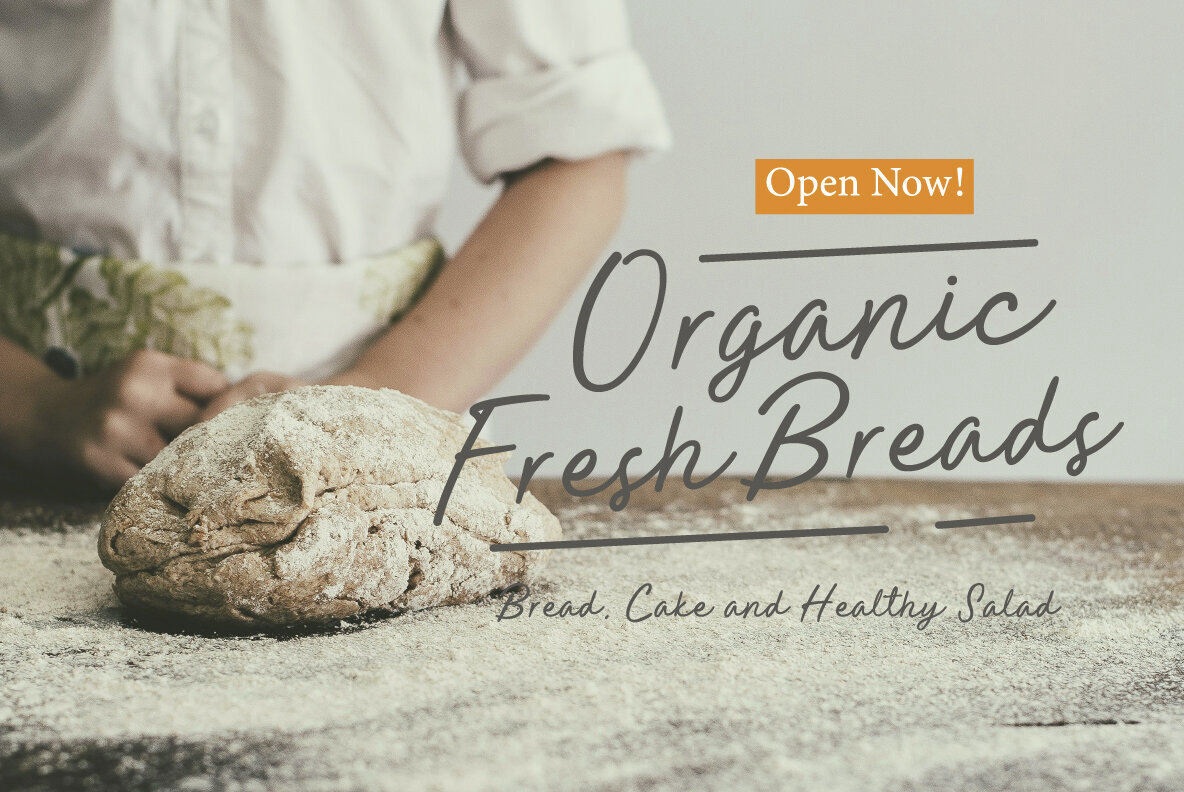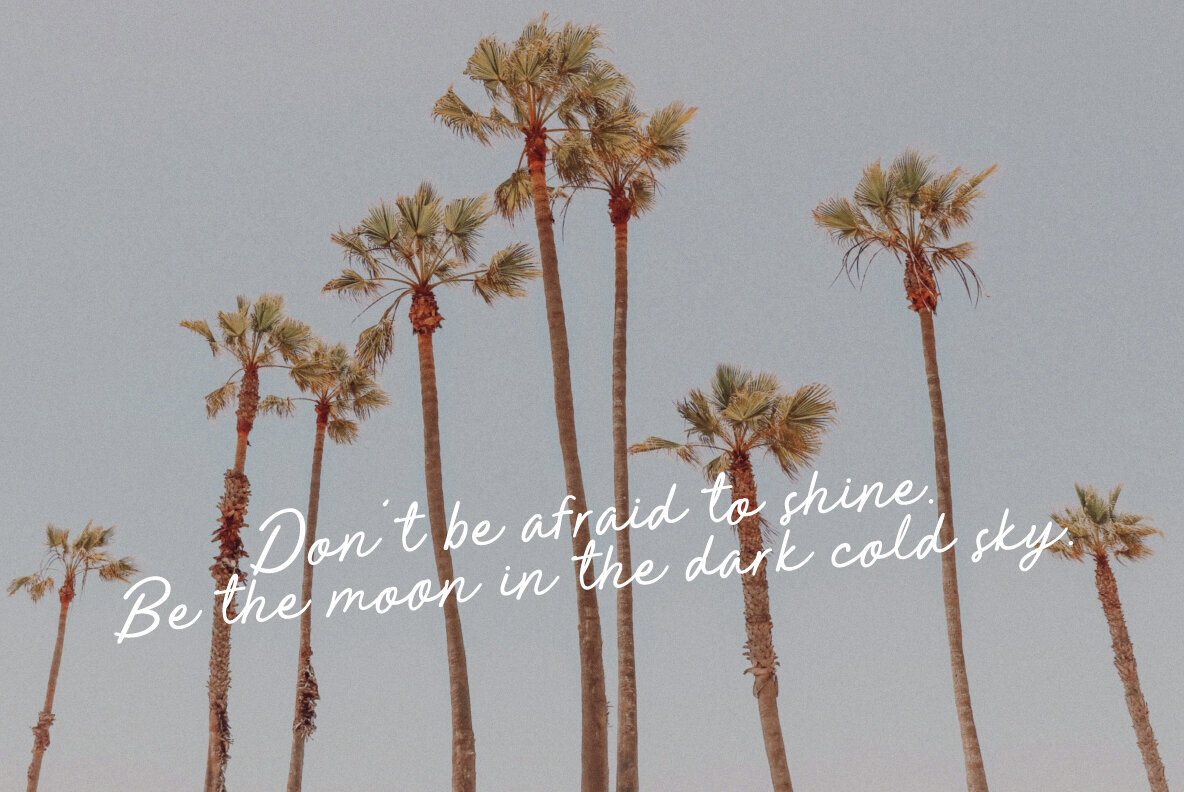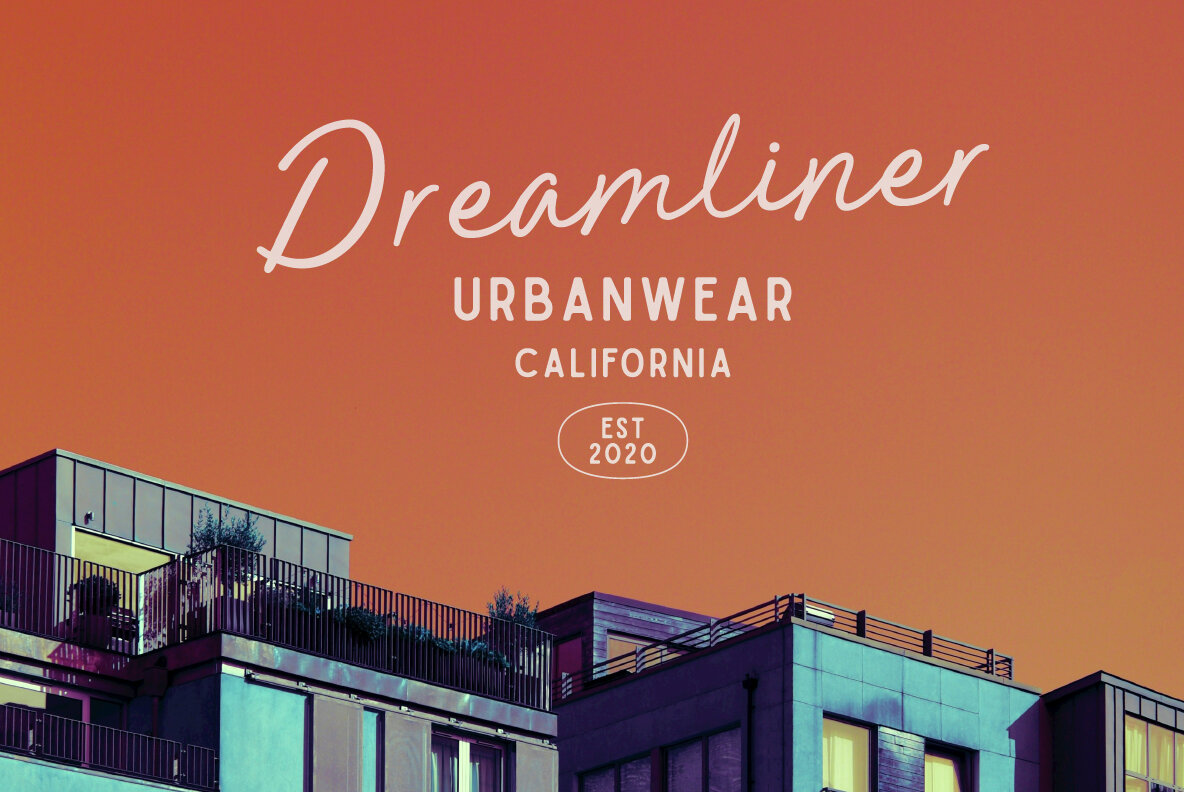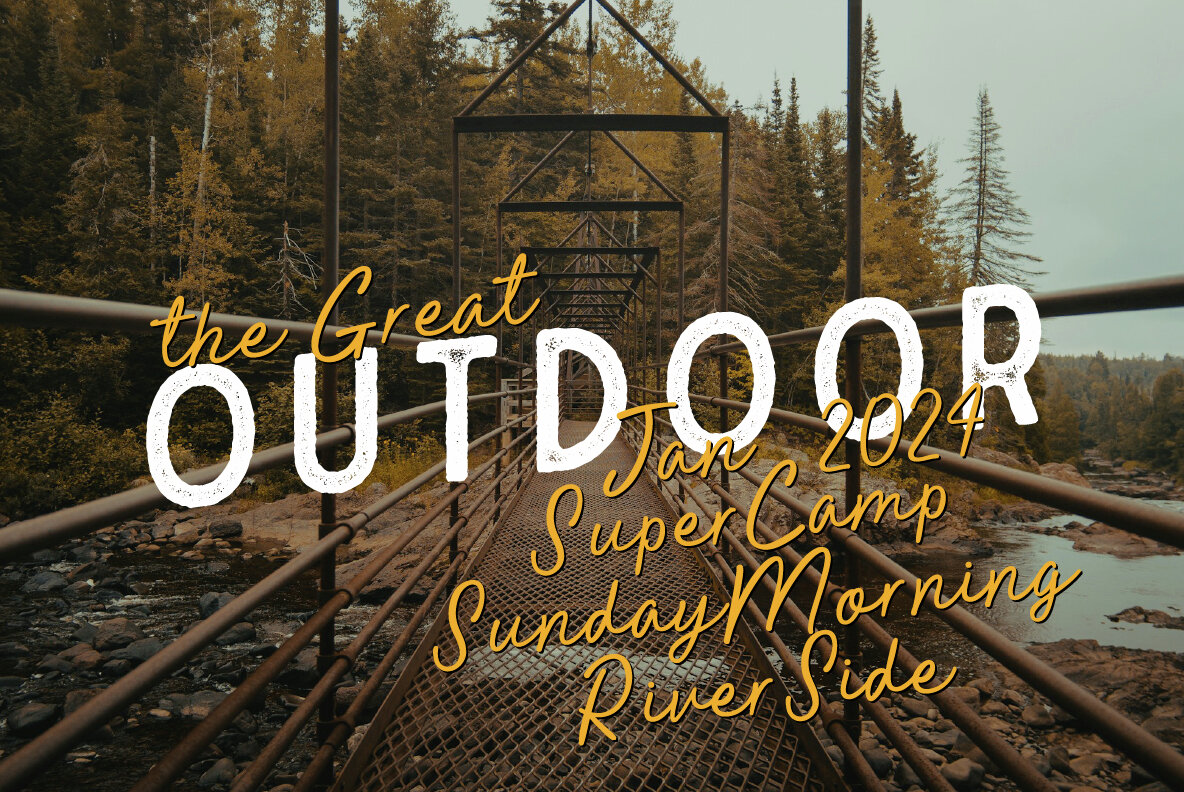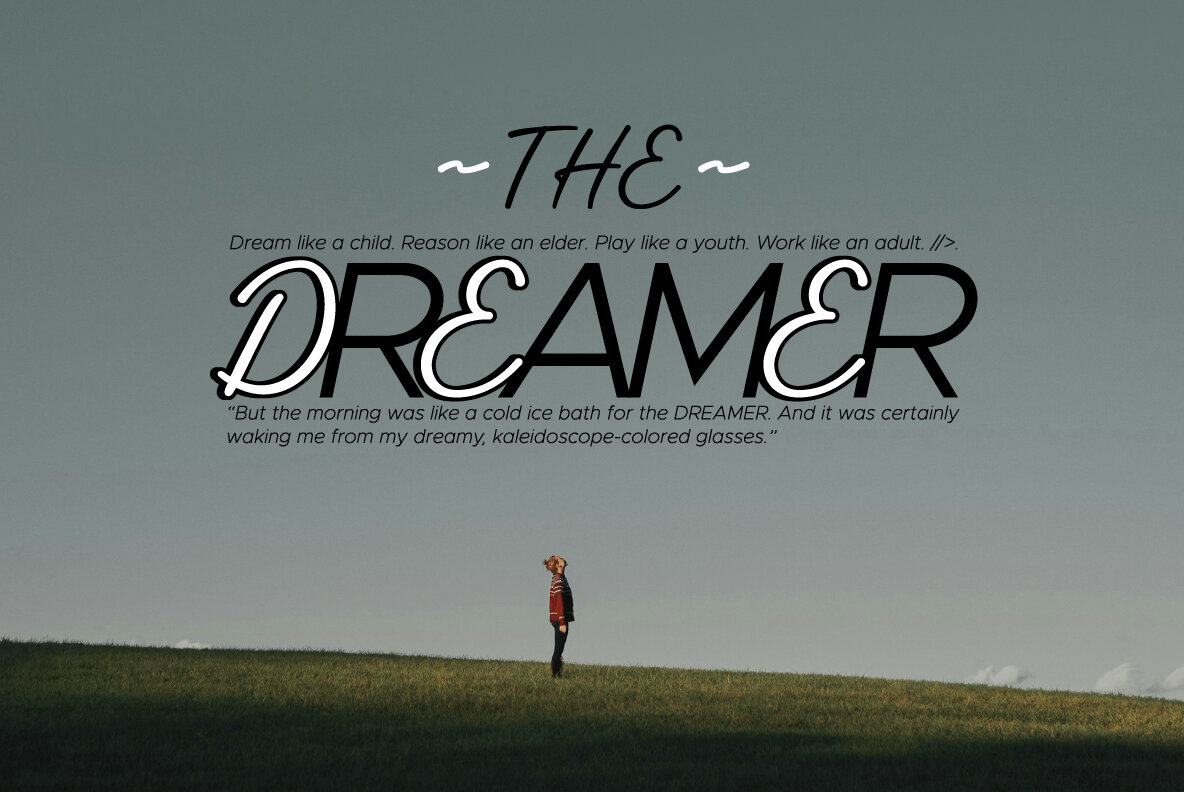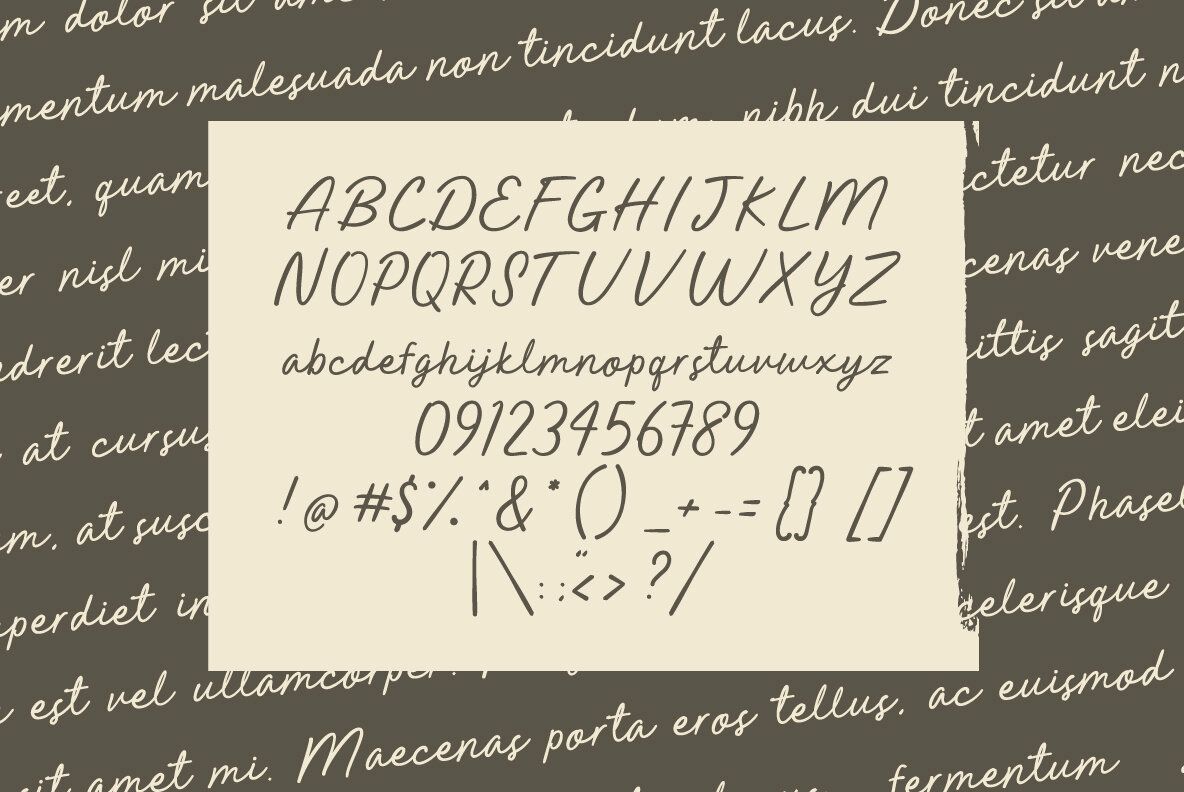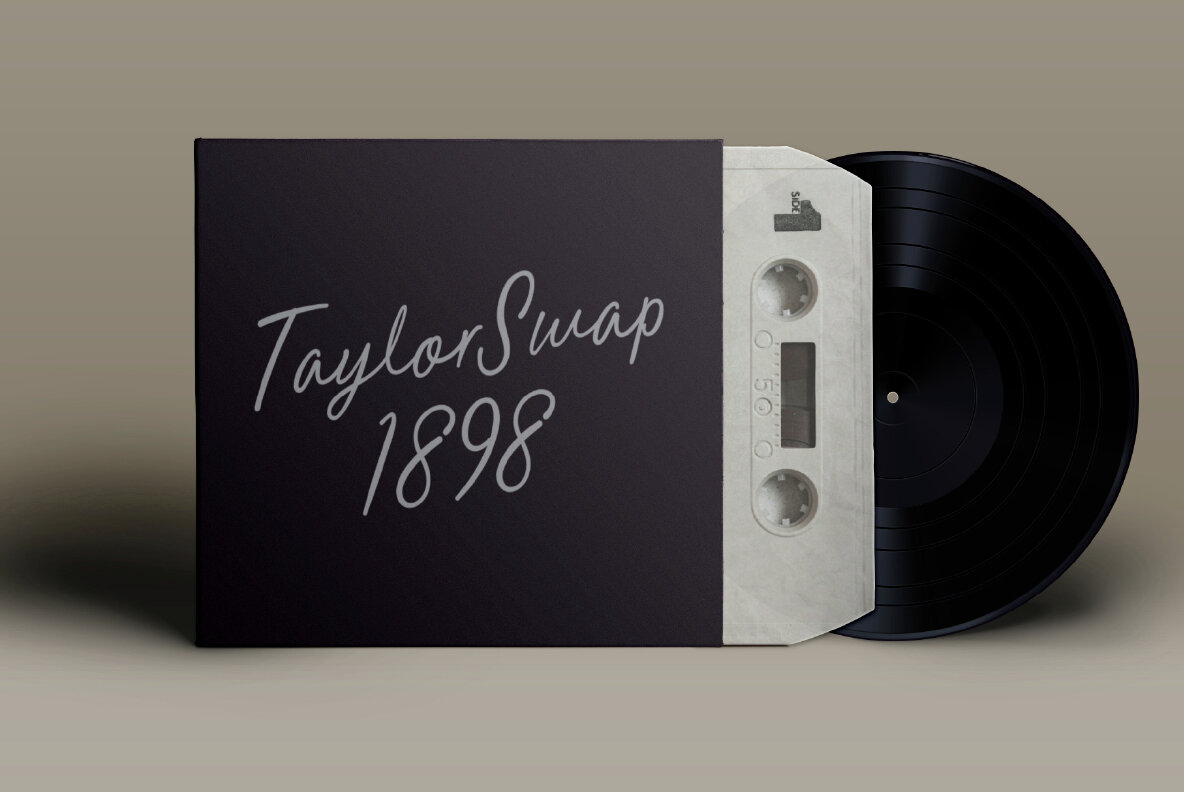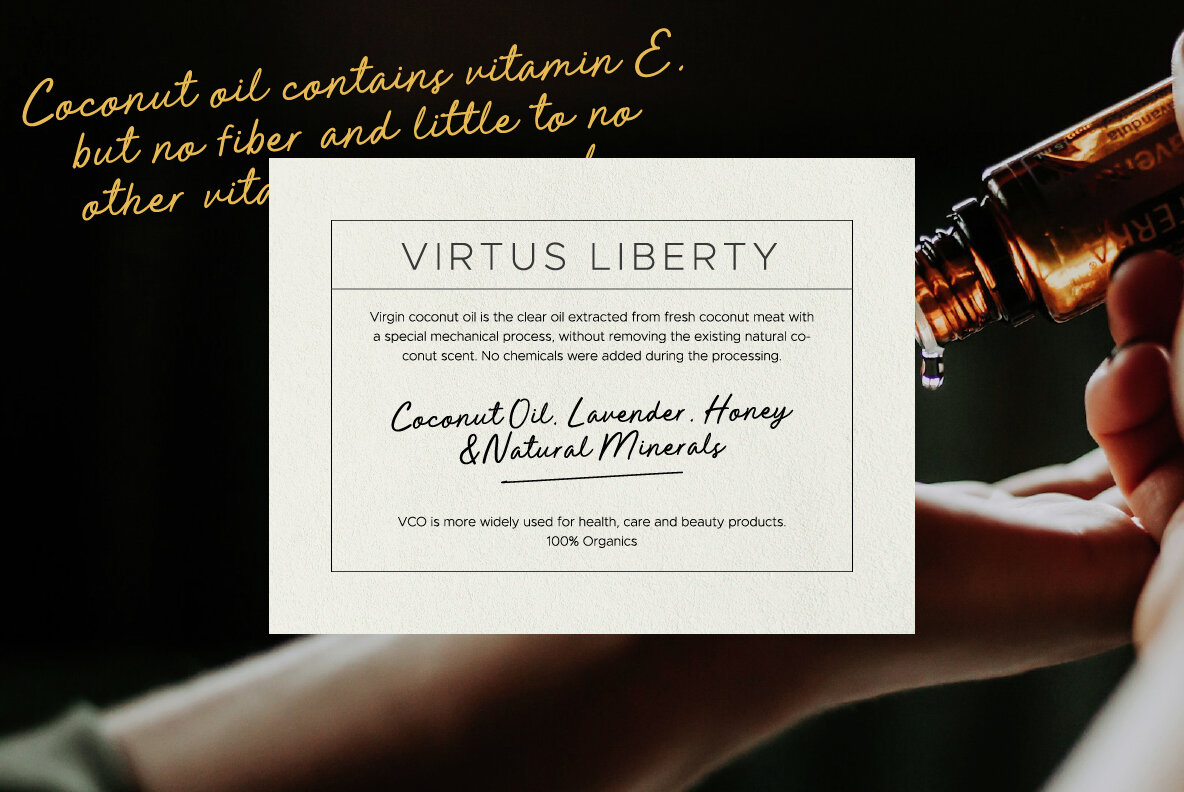
Memorable Font
Memorable Regular
Our unrivalled product, Memorable Font, is the latest brainchild of Angga Mahardika. Predominantly minimalist and simply hand-lettered, it embodies versatility bursting through its script. Feminine, casual, elegant, and adorable, all rolled into one exciting package. Crafted for graphic designers and marketing firms, it's a font that enhances brand representation with flair.Introducing Memorable Font: Revolutionising Graphic Design